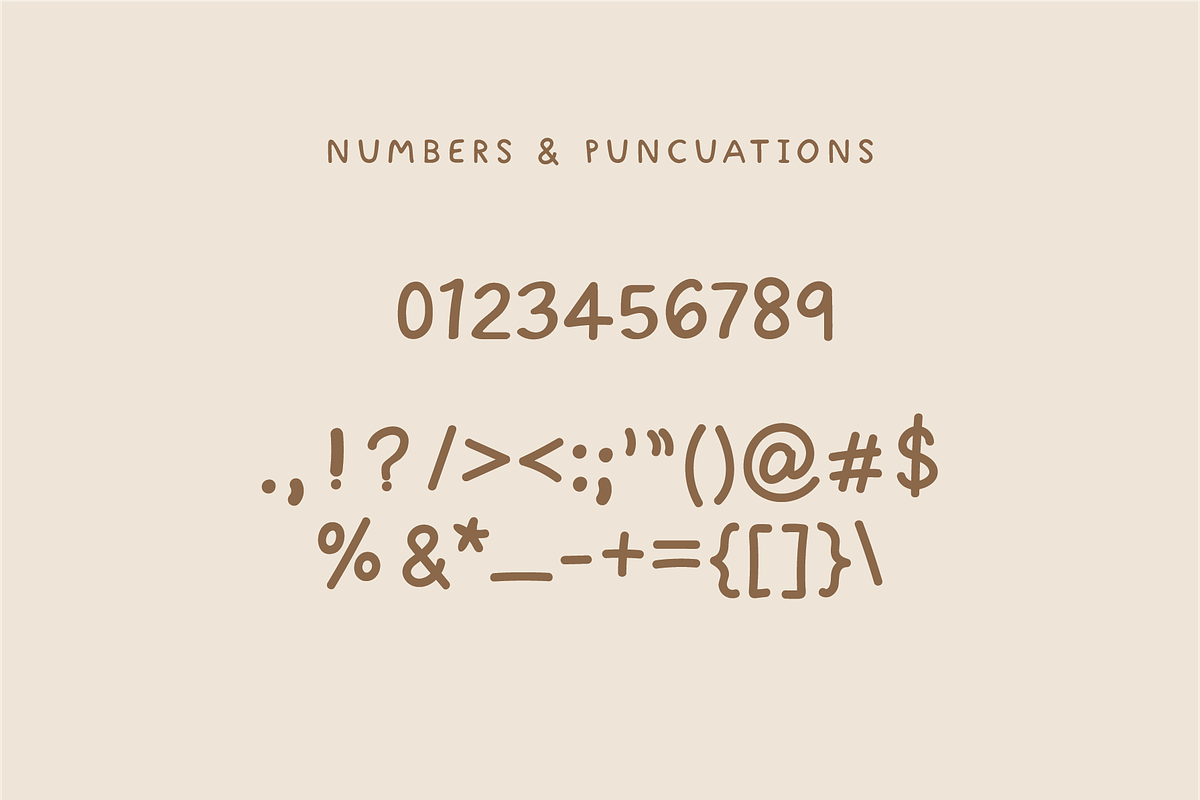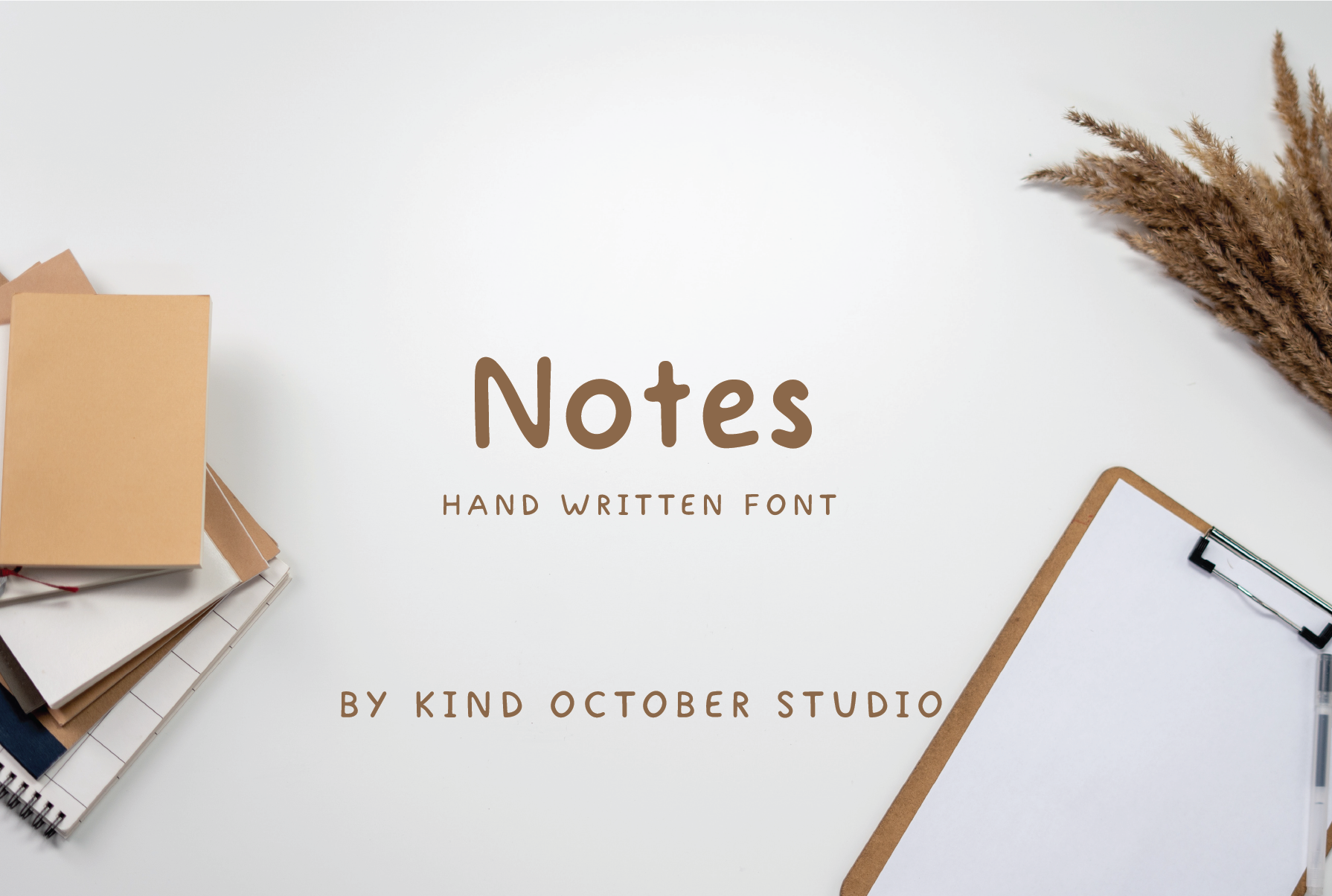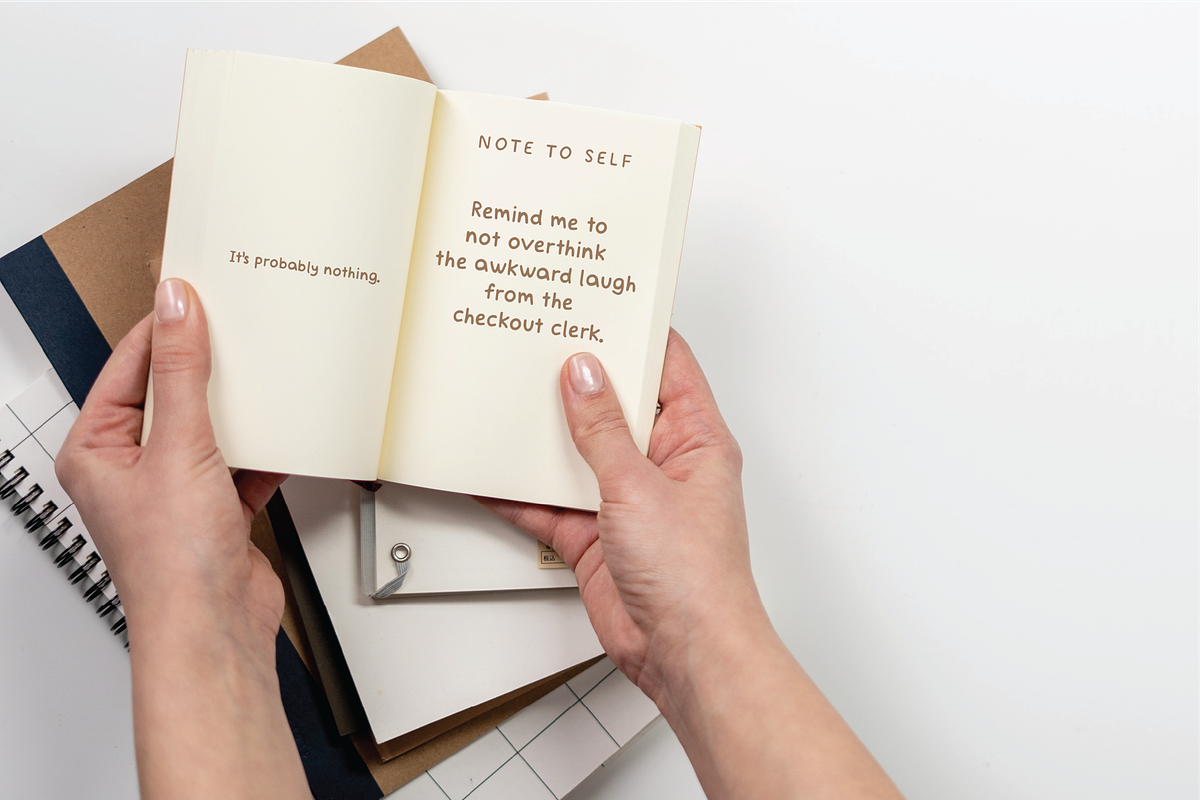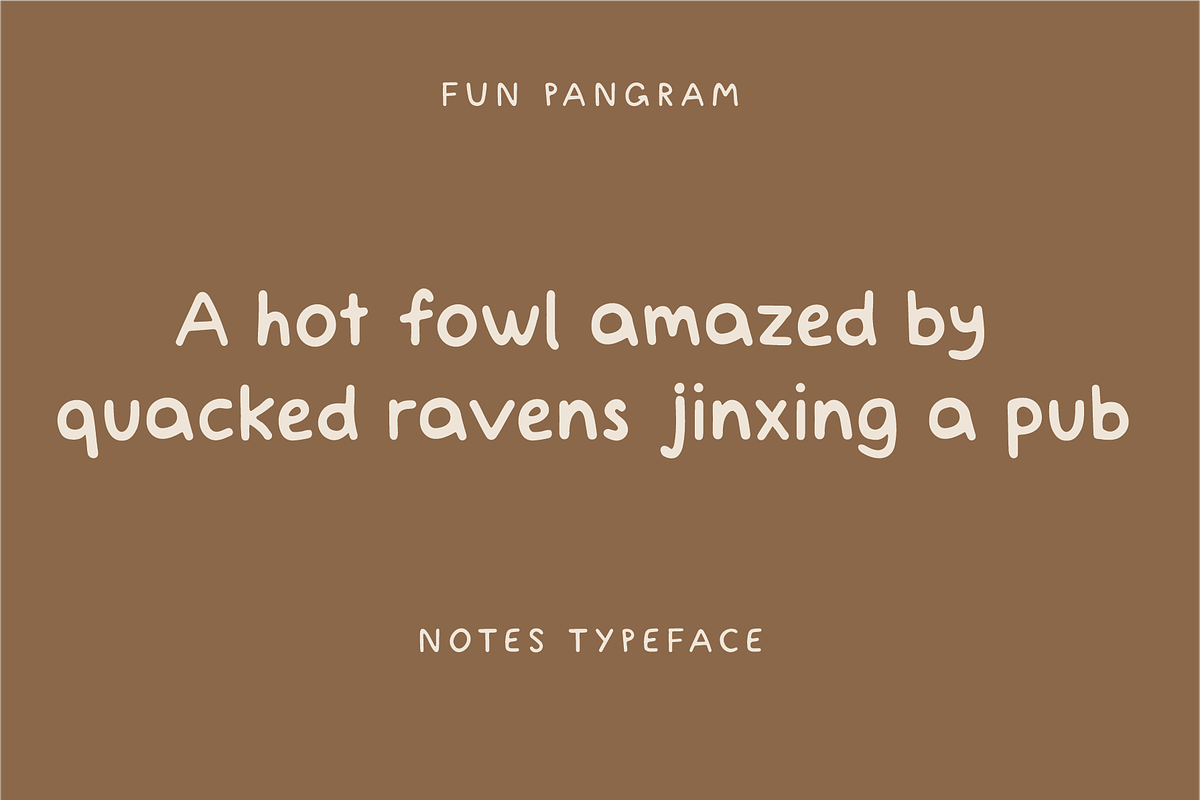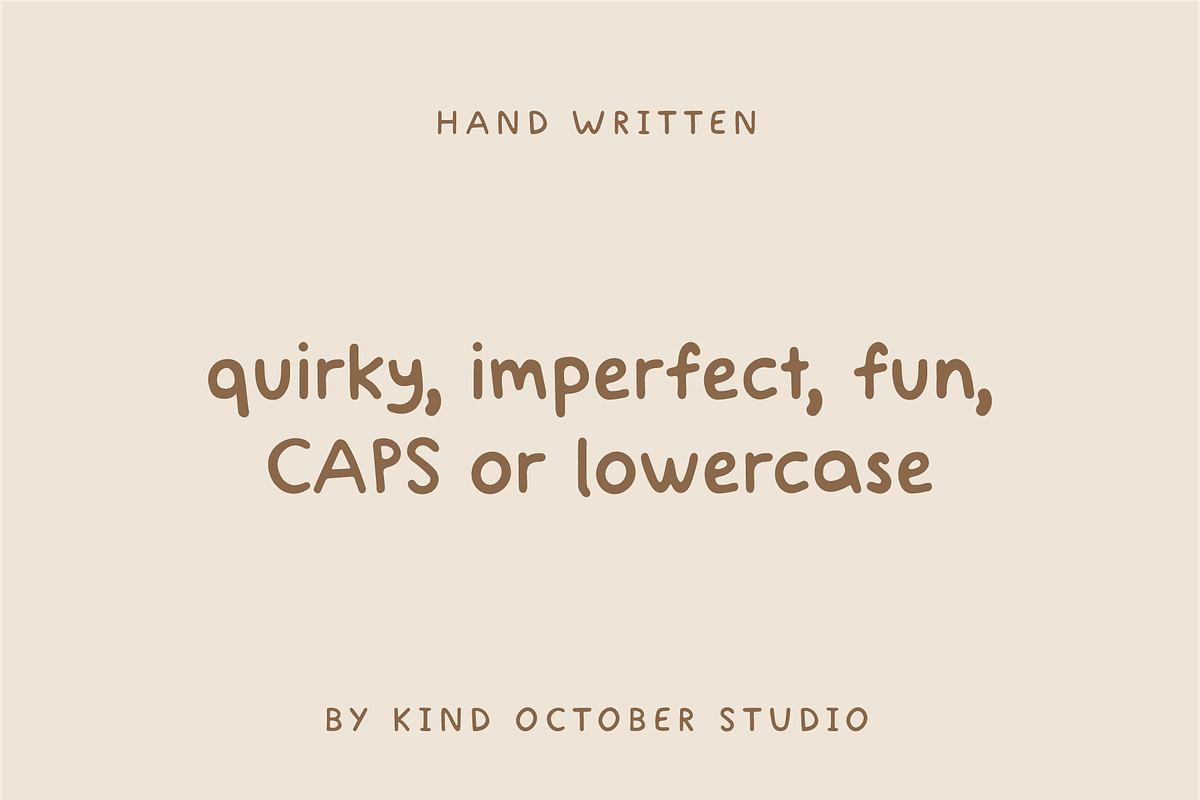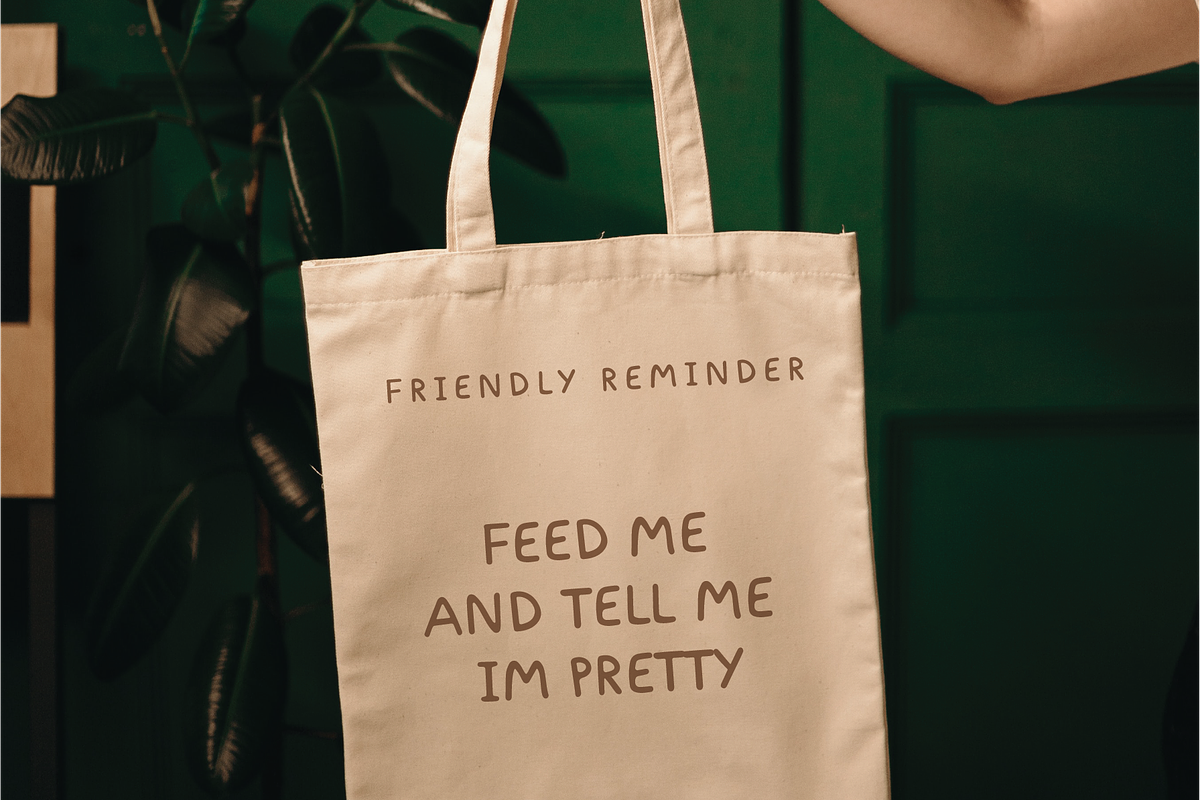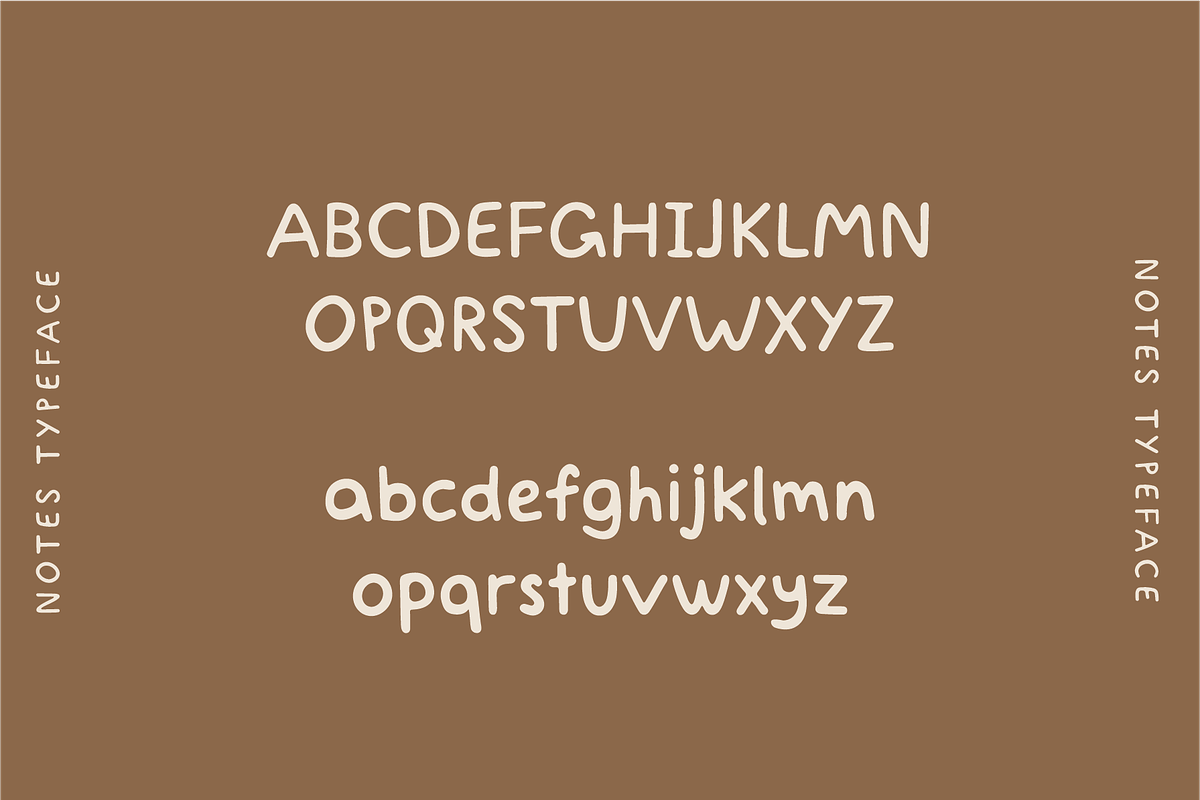
Notes Handwritten Font
Perfectly imperfect
Notes is a hand written font made from my own handwriting. Best for digital notes, kid designs or fun, creative artwork.